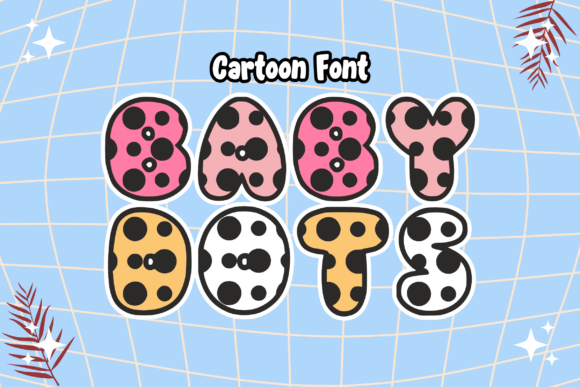
Baby Dots Font: The Ultimate Cheerful Font for Your Creative Projects
Are you looking for a font that can add a touch of playfulness and joy to your designs? Look no further than the Baby Dots Font! This adorable font is perfect for a variety of creative projects, from sublimation designs to animations, and is sure to bring a smile to anyone’s face.
What is Baby Dots Font?
Baby Dots is a cheerful baby font with a polka dot style that is sure to capture the hearts of designers and audiences alike. Each character in the font is carefully crafted with polka dots, making it easy to recognize and adding a playful touch to any design.
Uses of Baby Dots Font
The Baby Dots Font is a versatile font that can be used for a wide range of creative projects, including:
- Sublimation design of t-shirts: Add a playful touch to your t-shirt designs with the Baby Dots Font.
- Mugs: Create fun and colorful mug designs with this cheerful font.
- Tote bags: Add a playful touch to your tote bag designs with the Baby Dots Font.
- Animations: Use this font to add a playful touch to your animations.
- Comic titles: Use the Baby Dots Font to create eye-catching comic titles.
Features of Baby Dots Font
The Baby Dots Font has several features that make it a great choice for designers, including:
- Unique polka dot style: Each character in the font is carefully crafted with polka dots, making it easy to recognize.
- Easy to read: Despite its playful style, the Baby Dots Font is easy to read, making it perfect for a variety of uses.
- Versatile: This font can be used for a wide range of creative projects.
Benefits of Using Baby Dots Font
Using the Baby Dots Font in your designs can have several benefits, including:
- Adding a playful touch: This font is sure to add a playful touch to any design.
- Standing out: The unique polka dot style of the Baby Dots Font is sure to make your designs stand out.
- Easy to recognize: The font’s playful style makes it easy to recognize and remember.
In conclusion, the Baby Dots Font is a unique and versatile font that is perfect for a variety of creative projects. Its playful polka dot style is sure to add a touch of joy to any design, and its ease of use makes it a great choice for designers of all levels. We hope you’ll consider using the Baby Dots Font in your next project!